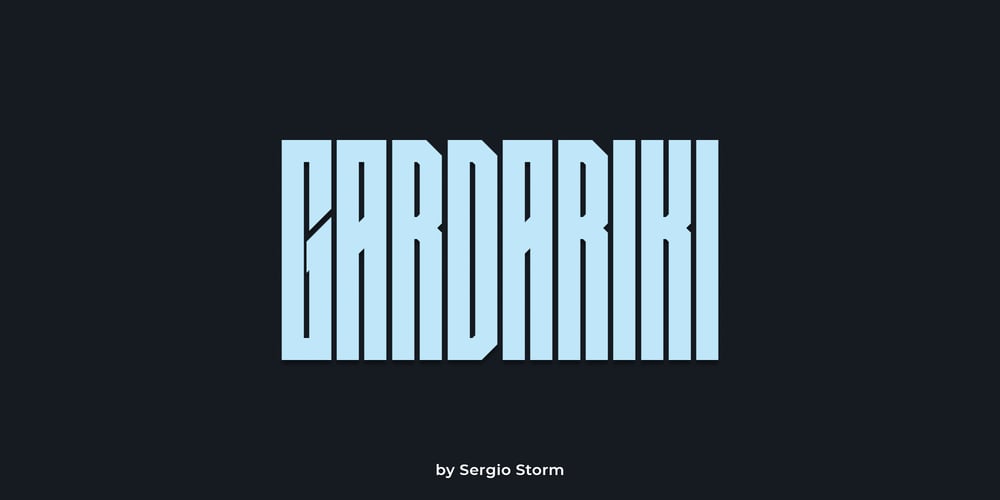
Gardariki
Gardariki font
Gardariki Font Family was designed by Sergey Mikheev and published by Sergio Storm. Gardariki contains 1 styles and family package options. “Gardariki” font is geometric sans-serif, straight, bold, extra condensed, monoweight font, accidental with sharp corners and closed aperture. Typeface is great for headlines, text logos and posters.Primarily font is inspired by Constructivism. It has laconic forms, geometricity and solidity and a tight inter-letter space.- Uppercase and lowercase letters- Kerning- Numbers and punctuation- Multilingual support (Latin, Latin Extended, Cyrillic)- Support for more than 20 languages: Albanian, Belarusian, Bulgarian, Croatian, Danish (Norwegian), Estonian, Finnish, German, Hungarian, Icelandic, Italian, Latvian, Lithuanian, Moldovan, Portuguese, Russian, Slovak, Slovenian, Spanish, Swedish, Turkish and others